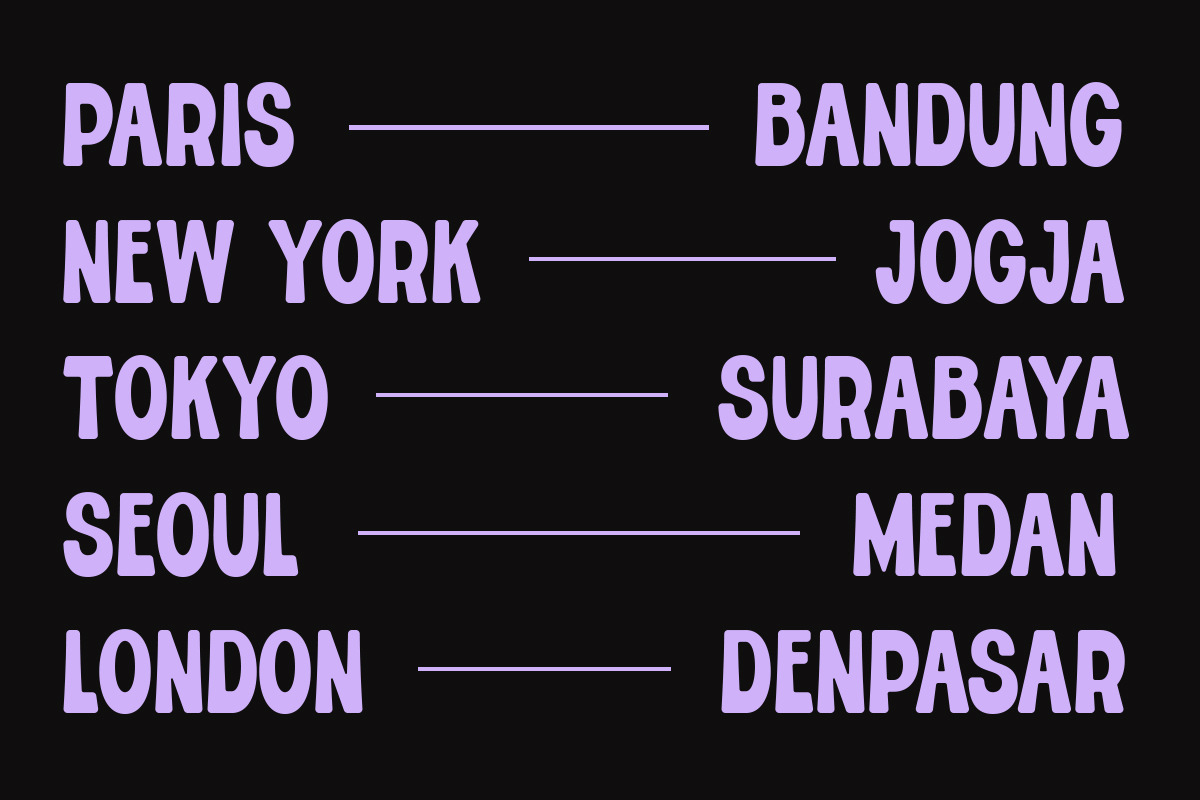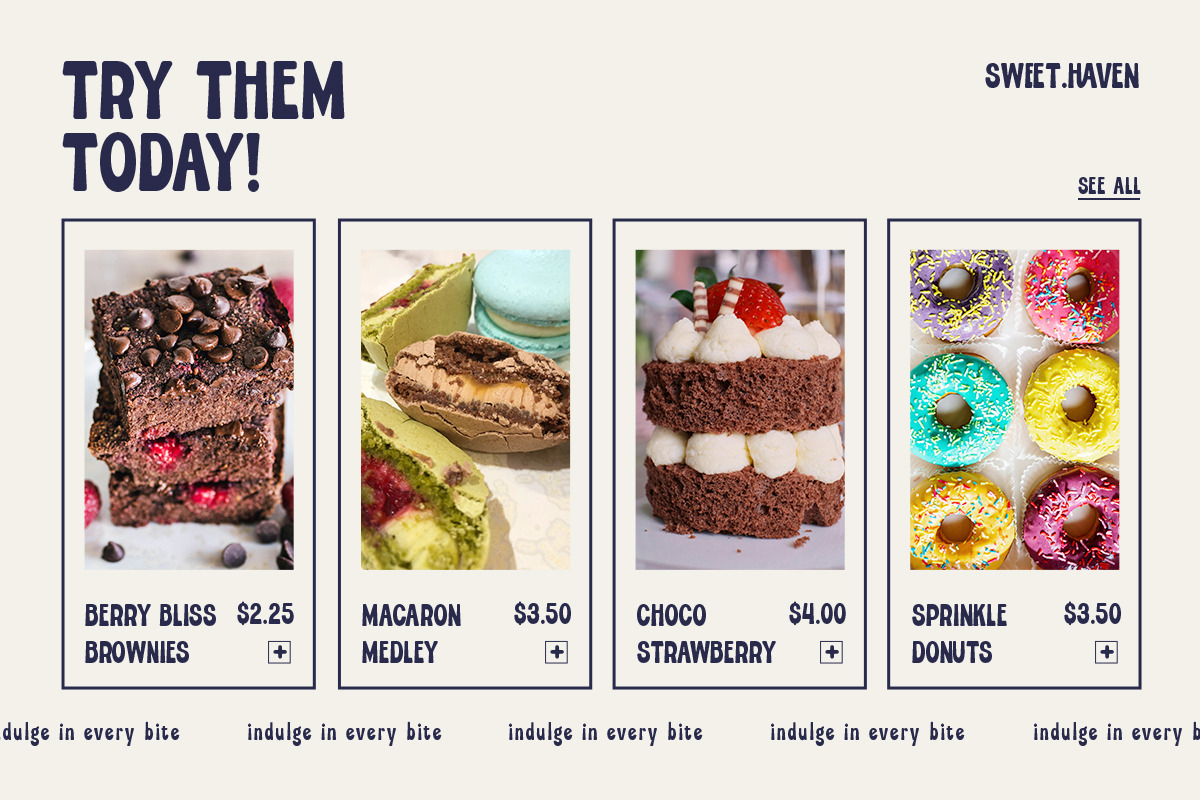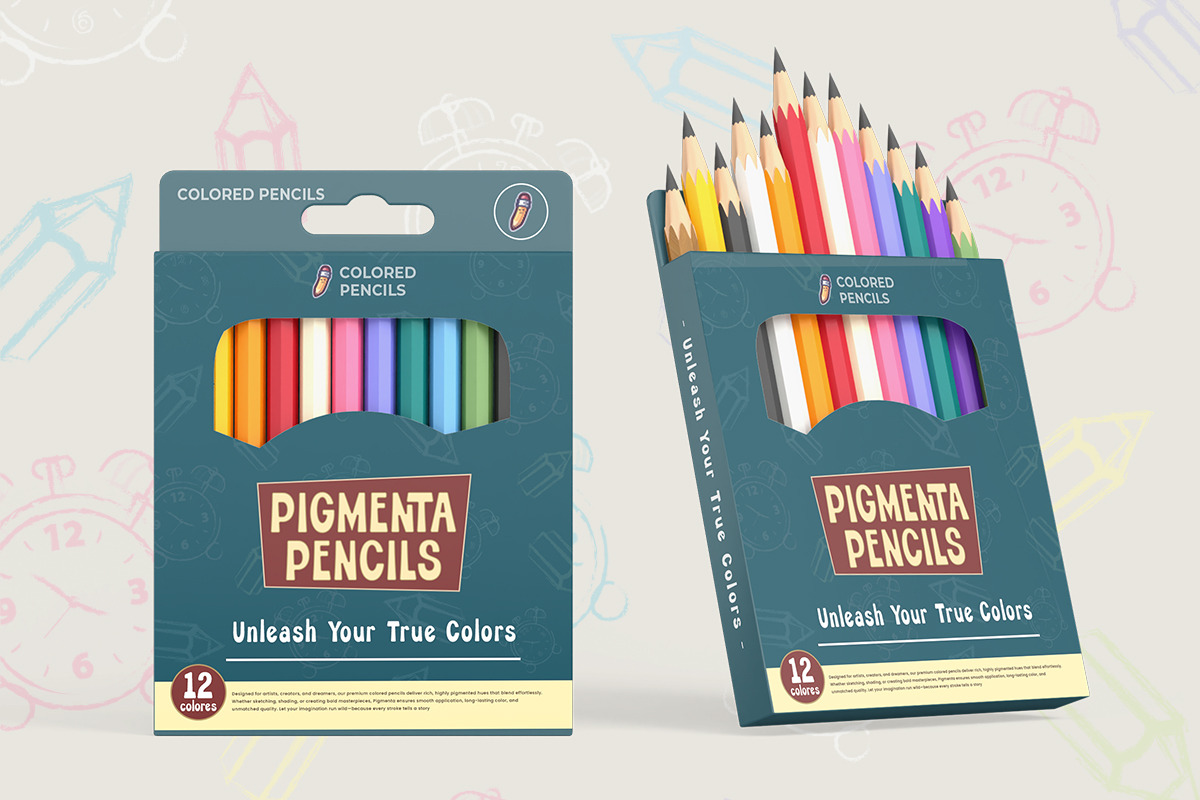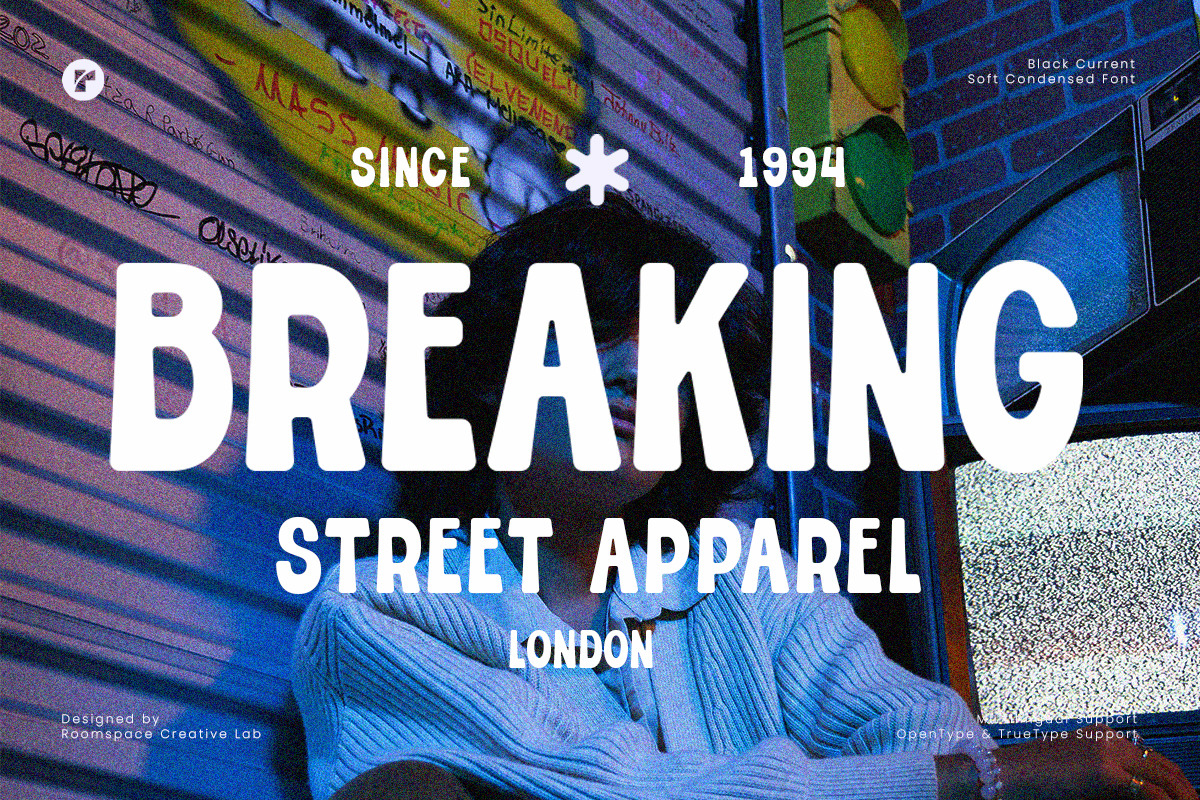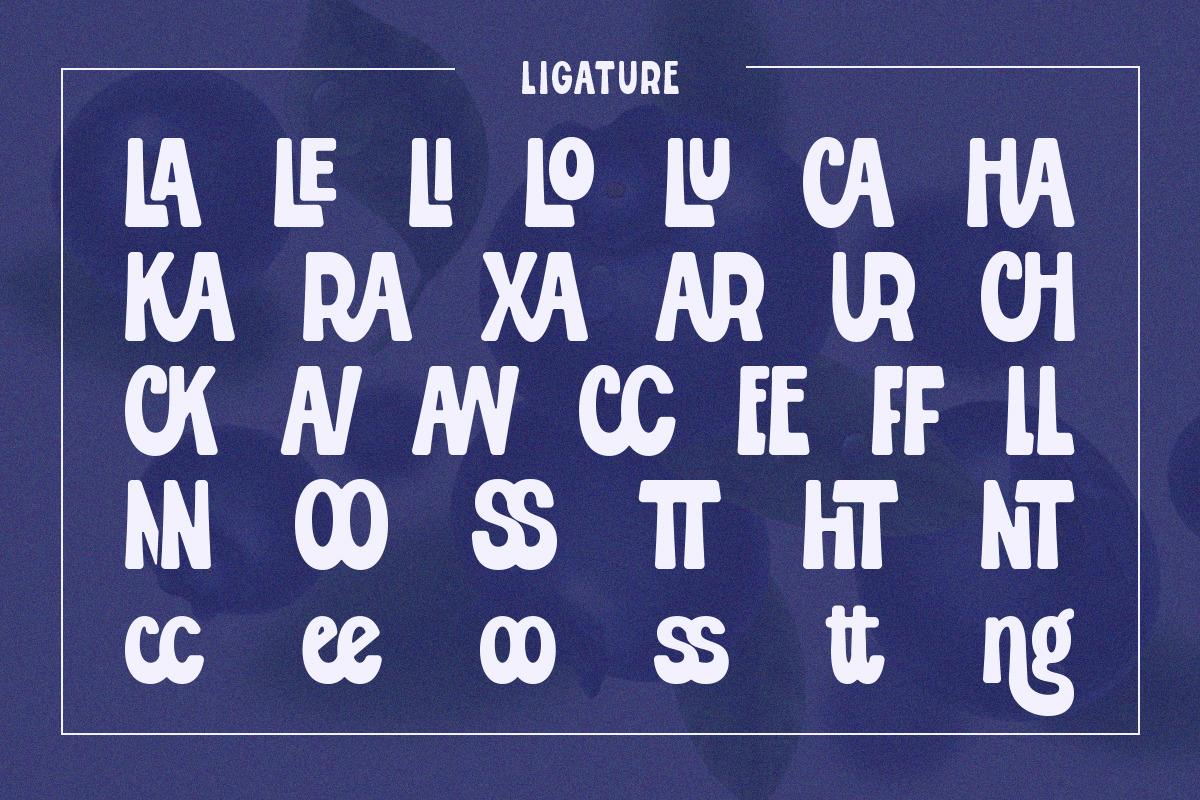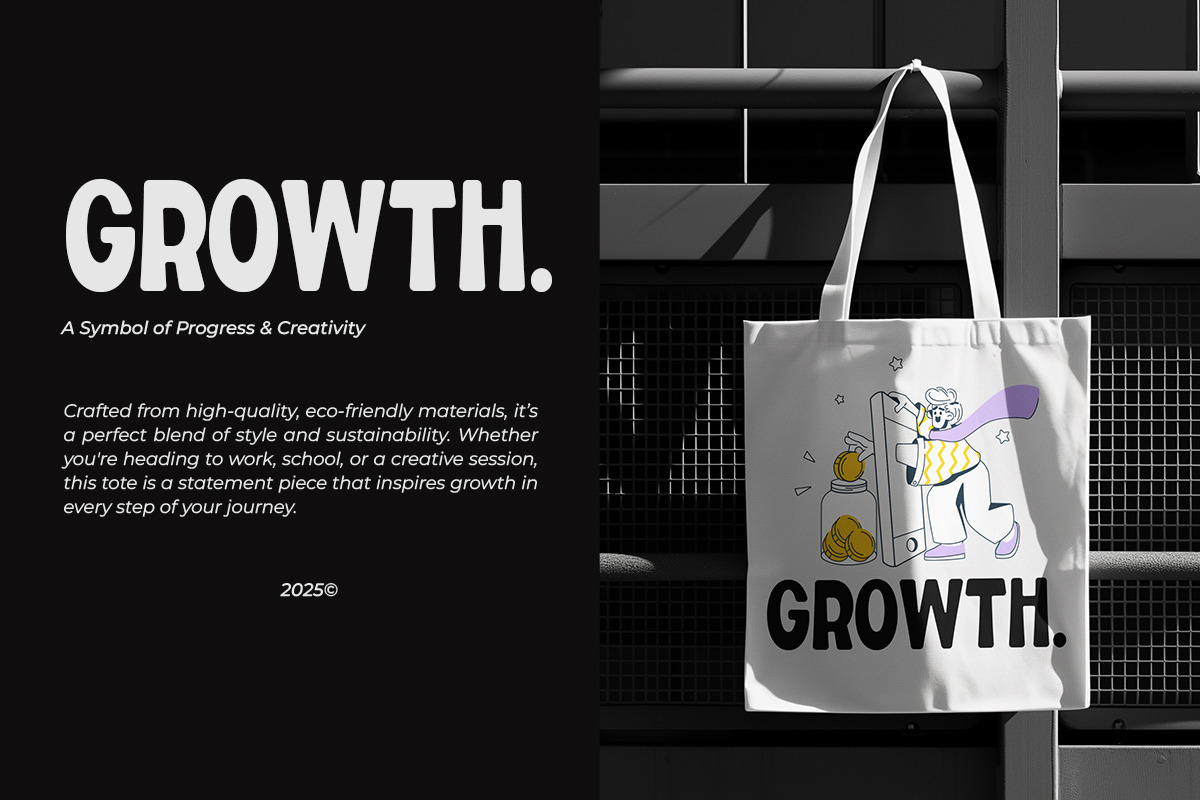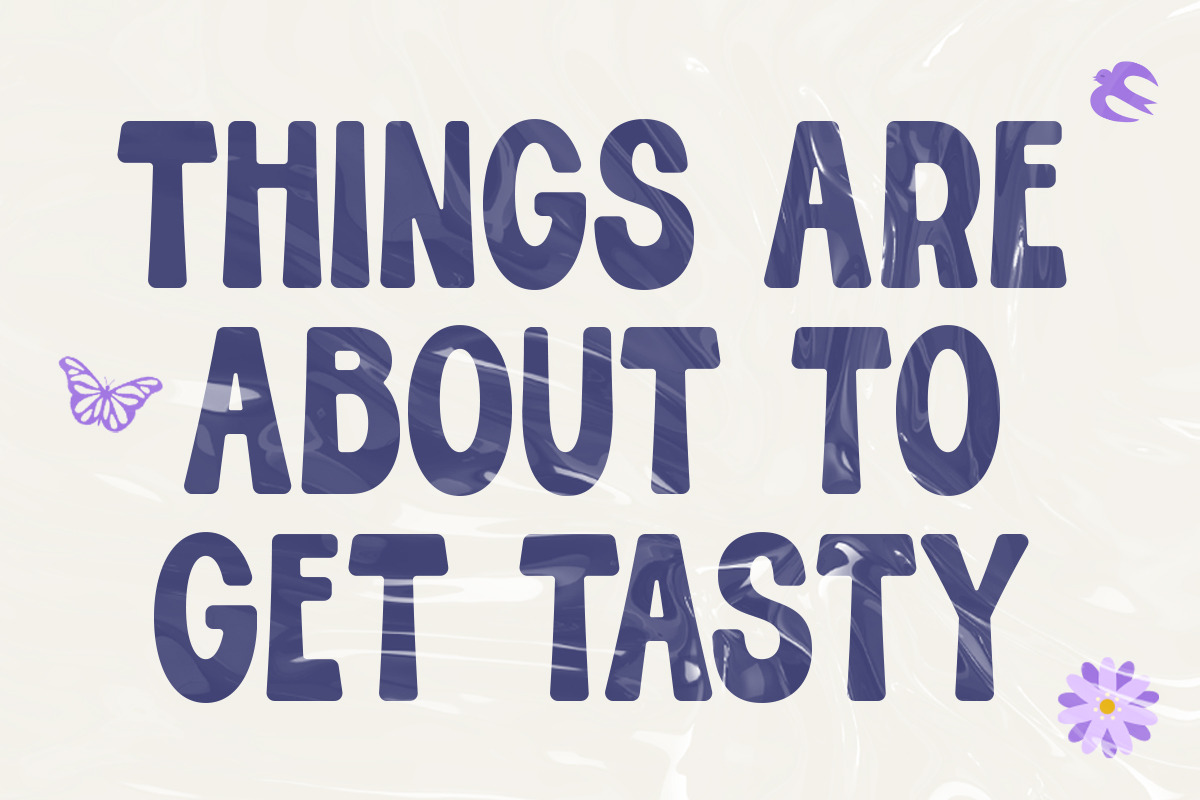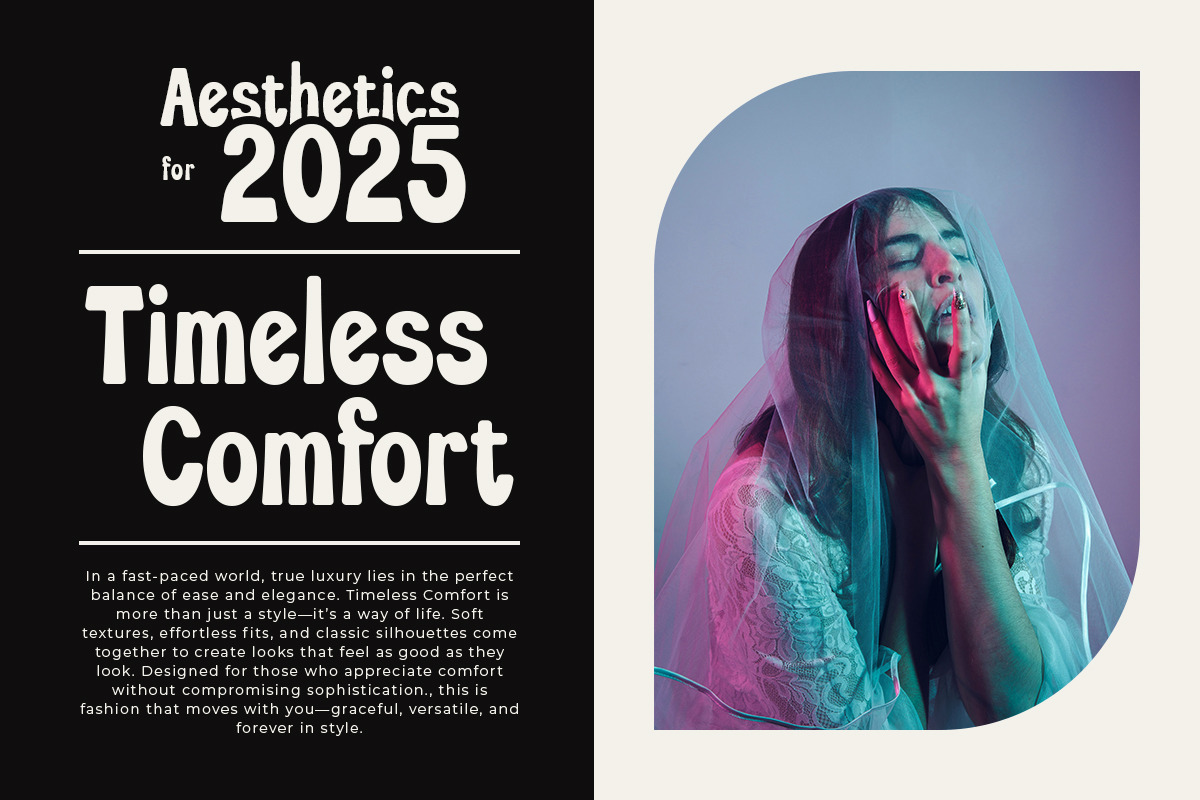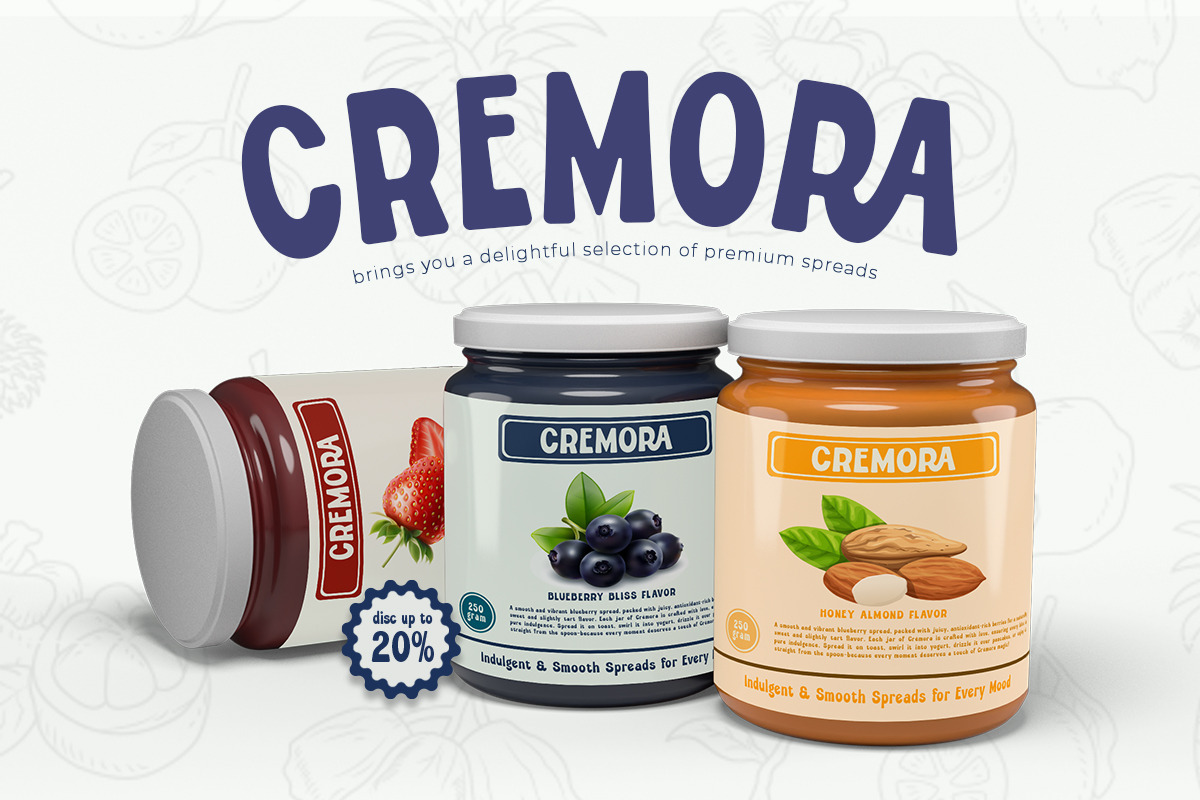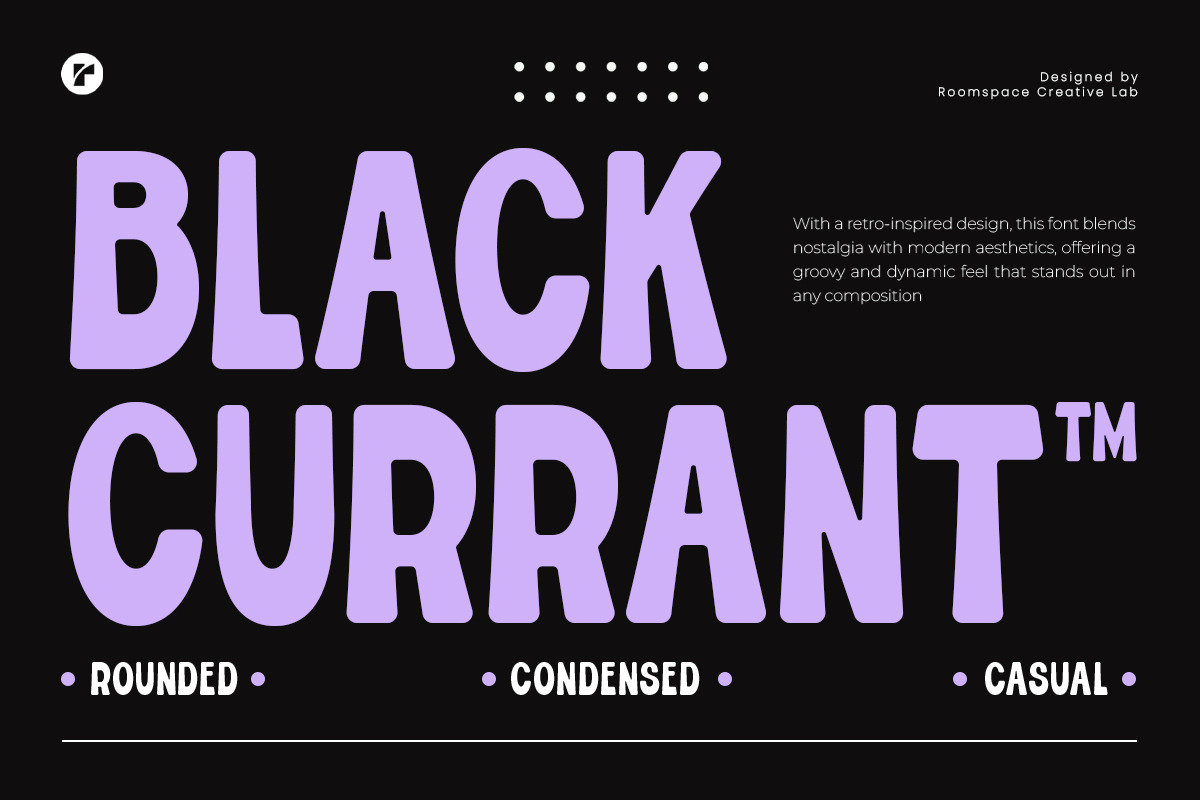
Black Currant Soft Condensed Font
Black Currant Soft Condensed is a decorative retro serif font designed to bring a nostalgic and charming vibe to your creative projects. With soft, condensed letterforms and a touch of vintage flair, Black Currant offers a perfect blend of elegance and personality for your designs.
This font features smooth edges and a retro-inspired style, making it ideal for adding warmth and character to any project. It includes both uppercase and lowercase styles, allowing you to experiment with unique combinations. Plus, with multilingual support, your designs can connect with audiences worldwide.
Whether you’re designing logos, posters, product packaging, social media graphics, or vintage-style branding, Black Currant Soft Condensed is the perfect choice. Its decorative and retro aesthetic adds a delightful charm to projects that need a playful yet sophisticated vibe.